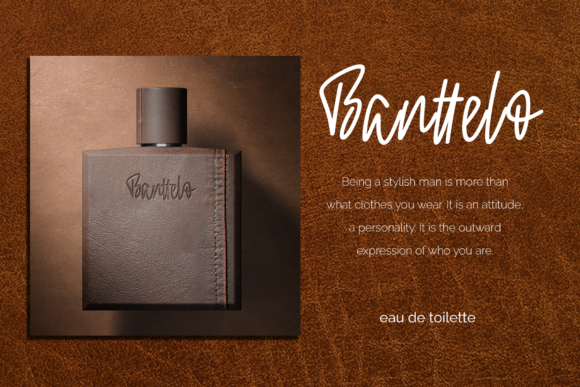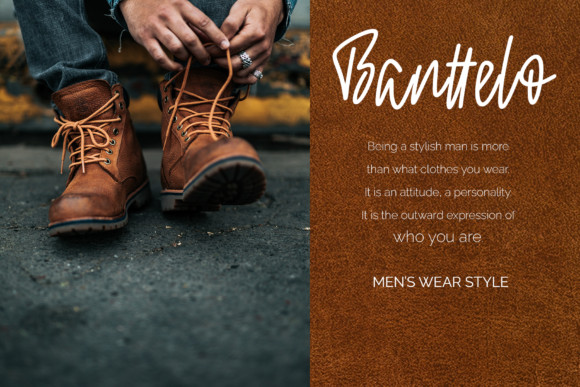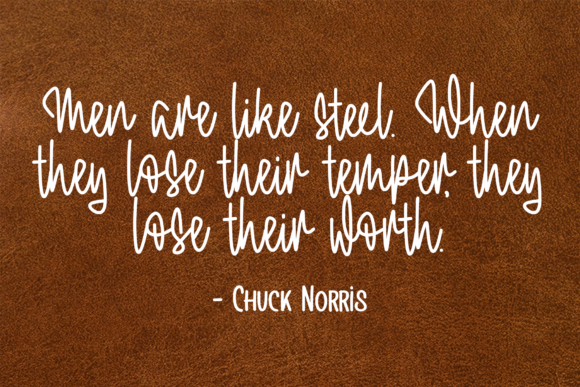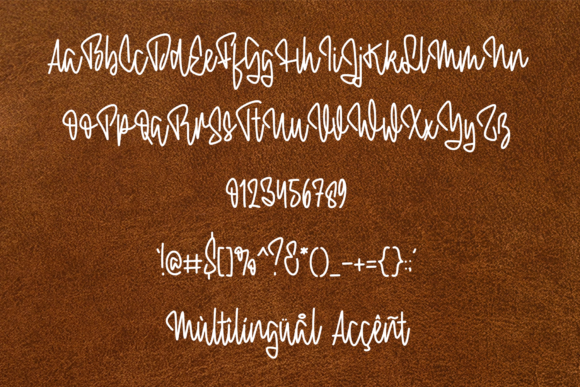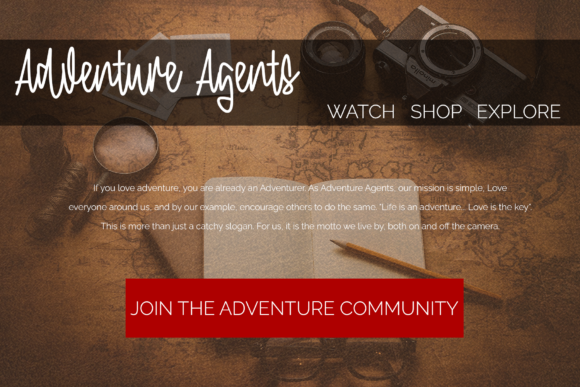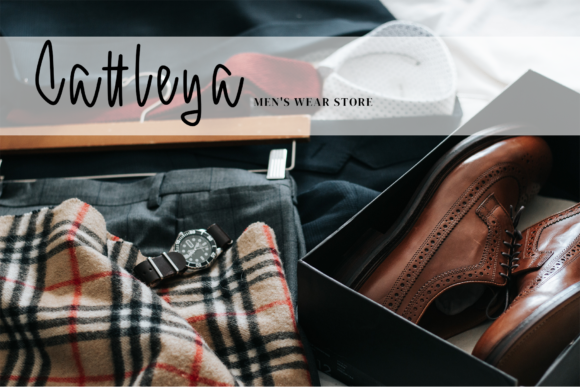
Bantello Font: Adding a Cool Spark to Your Design Projects
Are you tired of using the same old fonts in your design projects? Do you want to add a unique touch that sets your work apart from the rest? Look no further than the Bantello font, a quirky and casual handwritten font that’s sure to make a stunning impact. In this article, we’ll dive into the world of Bantello, exploring its features, benefits, and uses, and show you why it’s a must-have for designers and crafters alike.
The Unique Feel of Bantello
Bantello is a one-of-a-kind font that’s been carefully crafted to bring a fresh and playful feel to your designs. Its quirky and casual nature makes it perfect for projects that require a personal touch, such as branding, packaging, and social media graphics. The font’s unique feel is characterized by its irregular letterforms, varying line widths, and a dash of playfulness that’s hard to resist.
Adding a Cool Spark to Your Designs
So, what makes Bantello so special? The answer lies in its ability to add a cool spark to any design project. Whether you’re working on a logo, brochure, or website, Bantello’s unique feel and stunning impact are sure to elevate your work to the next level. Its casual and approachable nature makes it perfect for designs that require a friendly and inviting tone, such as:
- Branding and logos: Create a memorable brand identity with Bantello’s quirky and playful font.
- Social media graphics: Add a personal touch to your social media posts and stories with Bantello’s unique feel.
- Packaging design: Make your products stand out on store shelves with Bantello’s eye-catching font.
- Web design: Create a friendly and inviting website with Bantello’s casual and approachable tone.
Why Choose Bantello?
With so many fonts to choose from, why should you choose Bantello? Here are just a few reasons why Bantello stands out from the crowd:
- Unique feel: Bantello’s quirky and casual nature makes it a one-of-a-kind font that’s sure to set your designs apart.
- Versatility: Bantello is perfect for a wide range of design projects, from branding and packaging to social media graphics and web design.
- Ease of use: Bantello is easy to read and works well in a variety of contexts, making it a practical choice for designers.
- High-quality: Bantello is a high-quality font that’s been carefully crafted to deliver stunning results.
Tips for Using Bantello
Now that you know why Bantello is a great choice for your design projects, here are some tips for using it effectively:
- Pair it with contrasting fonts: Pair Bantello with contrasting fonts to create visual interest and add depth to your designs.
- Experiment with colors: Try out different colors and textures to add an extra layer of personality to your designs.
- Use it sparingly: Use Bantello sparingly to create emphasis and draw attention to specific elements in your designs.
In conclusion, Bantello is a quirky and casual handwritten font that’s sure to add a cool spark to any design project. Its unique feel, versatility, and ease of use make it a must-have for designers and crafters alike. Whether you’re working on a branding project, social media graphics, or web design, Bantello is a great choice for adding a personal touch and creating a stunning impact. So why not give it a try and see the difference it can make in your designs?